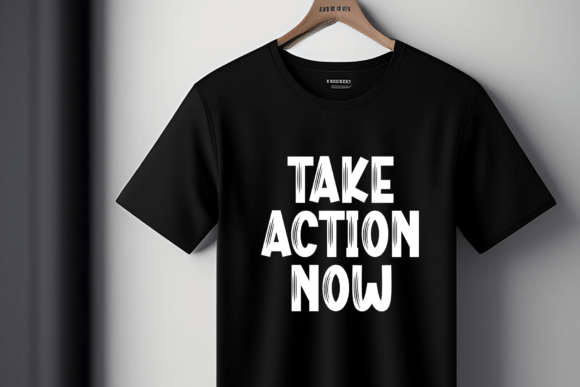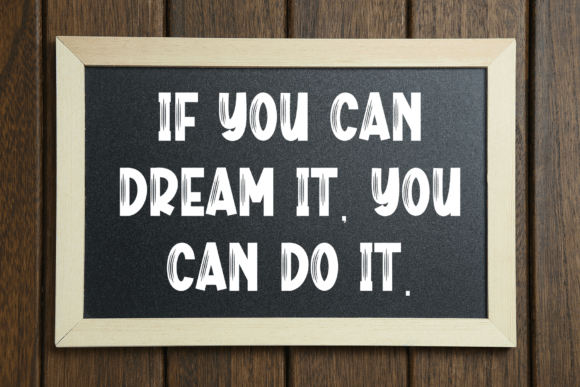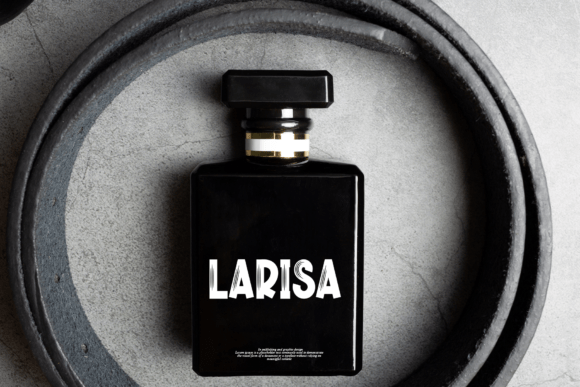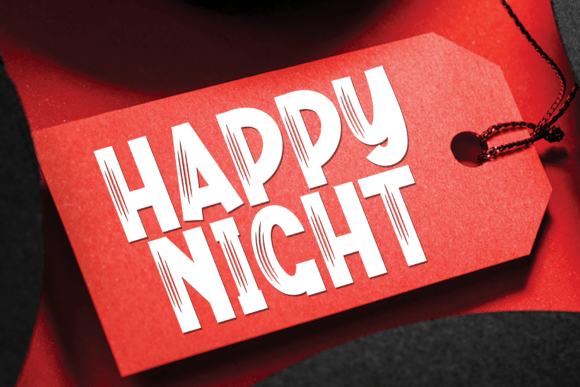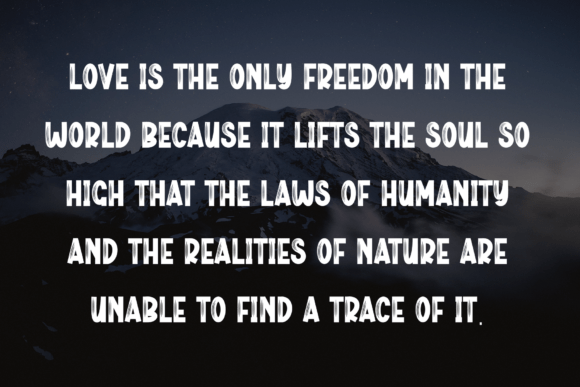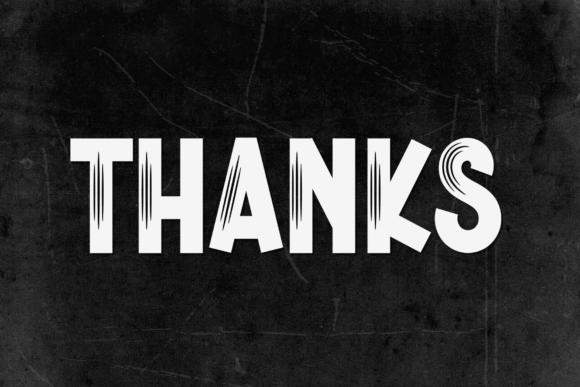
The Retro Revival: Unleashing the Power of Black Retro Font
I still remember the design struggle that led me to discover Black Retro Font. I was working on a project to create a bold, eye-catching poster for a client’s comic book-themed event. I had a clear vision of a vintage-inspired design, but I was having a hard time finding the perfect font to bring it all together. That’s when I stumbled upon Black Retro Font, and it instantly became the missing piece I needed.
First Impressions: A Love Letter to Black Retro Font
Black Retro Font is more than just a font – it’s a design statement. This bold display font seamlessly fuses vintage aesthetics with dynamic, cartoon-inspired energy, making it perfect for projects that demand attention and personality.
What I Love About Black Retro Font ✨
- ✅ Unique Aesthetic: The thick, blocky letterforms with dramatic inner line shading create a sense of depth and kinetic flair that’s hard to find in other fonts.
- ✅ High Contrast: The font’s high contrast makes it perfect for poster designs, t-shirt prints, and branding with a retro edge.
- ✅ Versatile: This font thrives in visually loud and playful contexts, making it ideal for a wide range of design projects.
- ⚠️ Legibility at Small Sizes: Due to its bold and decorative nature, Black Retro Font may not be the best choice for body text or small font sizes.
- ⚠️ Limited Use in Formal Contexts: The font’s playful and attention-grabbing style may not be suitable for formal or professional designs.
The story behind Black Retro Font’s design is one of passion and creativity. According to the font’s creator, the inspiration came from a childhood love of comic books and retro signage. The designer wanted to capture the essence of these vintage aesthetics and bring them into the modern design world.
| Font Name | Black Retro Font |
| What is Black Retro Font? | Black Retro Font is a bold display font that fuses vintage aesthetics with dynamic, cartoon-inspired energy. |
| Is Black Retro Font suitable for body text? | No, due to its bold and decorative nature, Black Retro Font is best used for headlines, titles, and short text passages. |
| Is Black Retro Font available in different styles or variations? | Yes, Black Retro Font comes with a range of glyphs, swashes, and alternate characters that can be used to create unique and varied designs. |